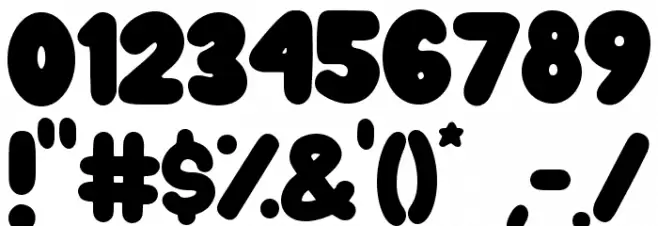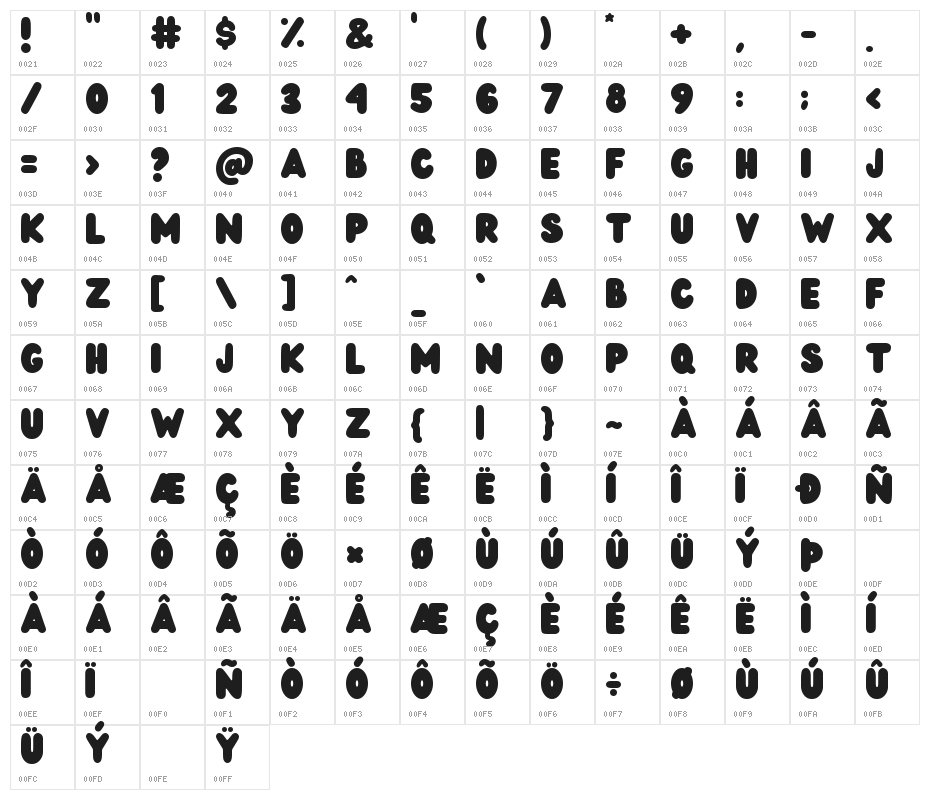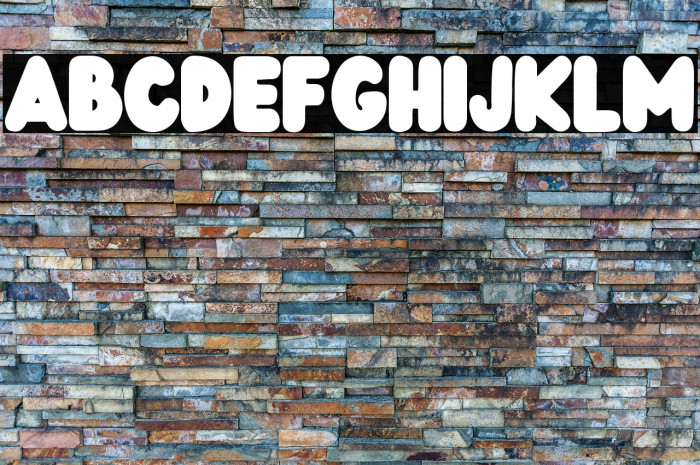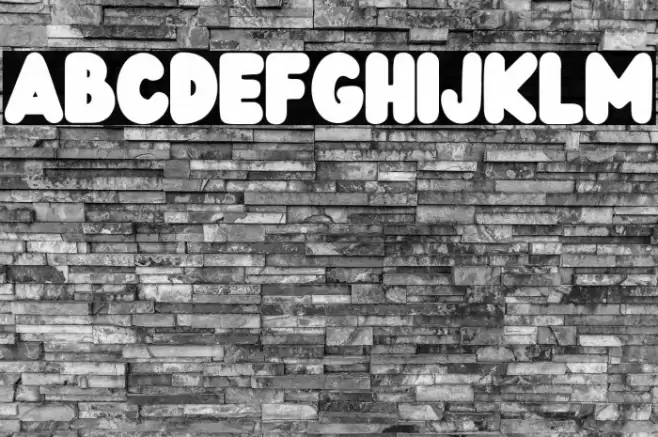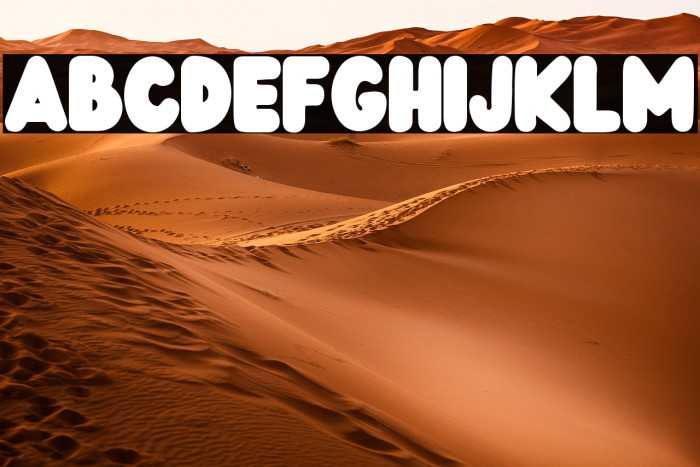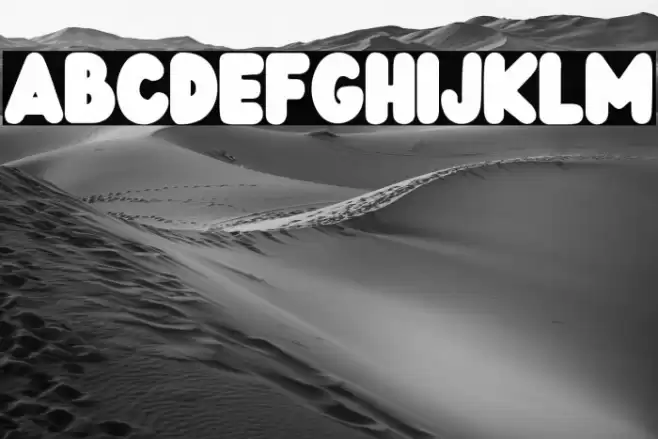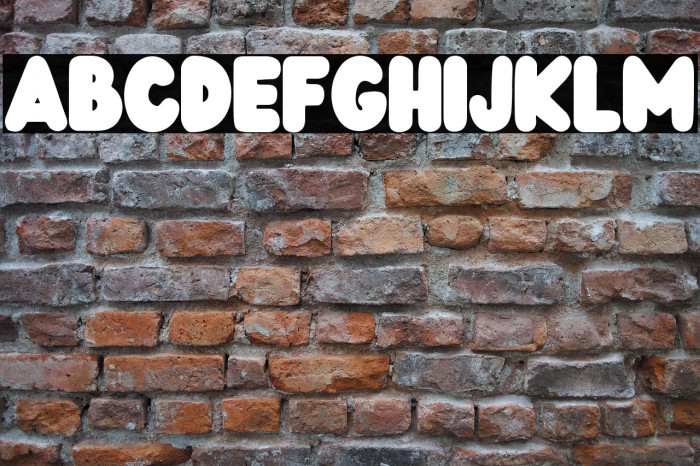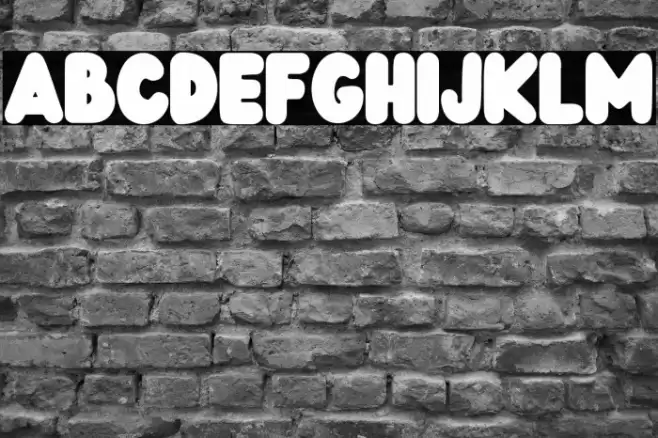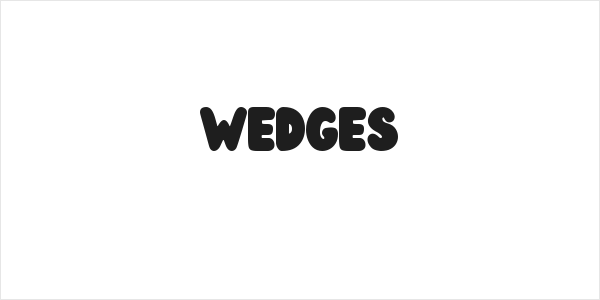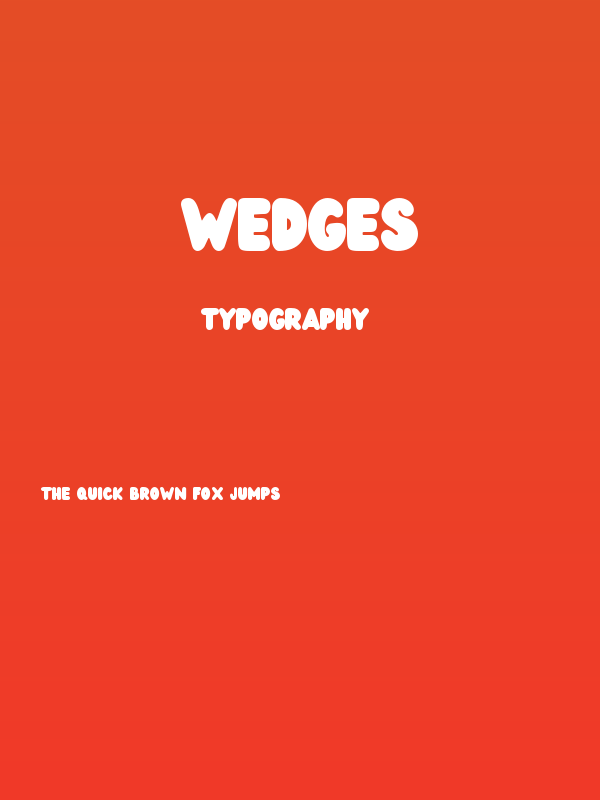
Wedges Font
Wedges Description
This font features bold, rounded characters with a playful and friendly appearance. The letters are uniformly thick, giving them a strong presence on the page. The rounded edges and lack of sharp angles contribute to a soft and approachable feel. The numbers and special characters maintain the same bold and rounded style, ensuring consistency across all elements. This font is ideal for designs that require a fun and informal touch, such as children's books, playful branding, or casual event invitations.
| Proposed Projects | Ideal for children's books, playful branding, casual event invitations, and any design needing a fun, informal touch. |